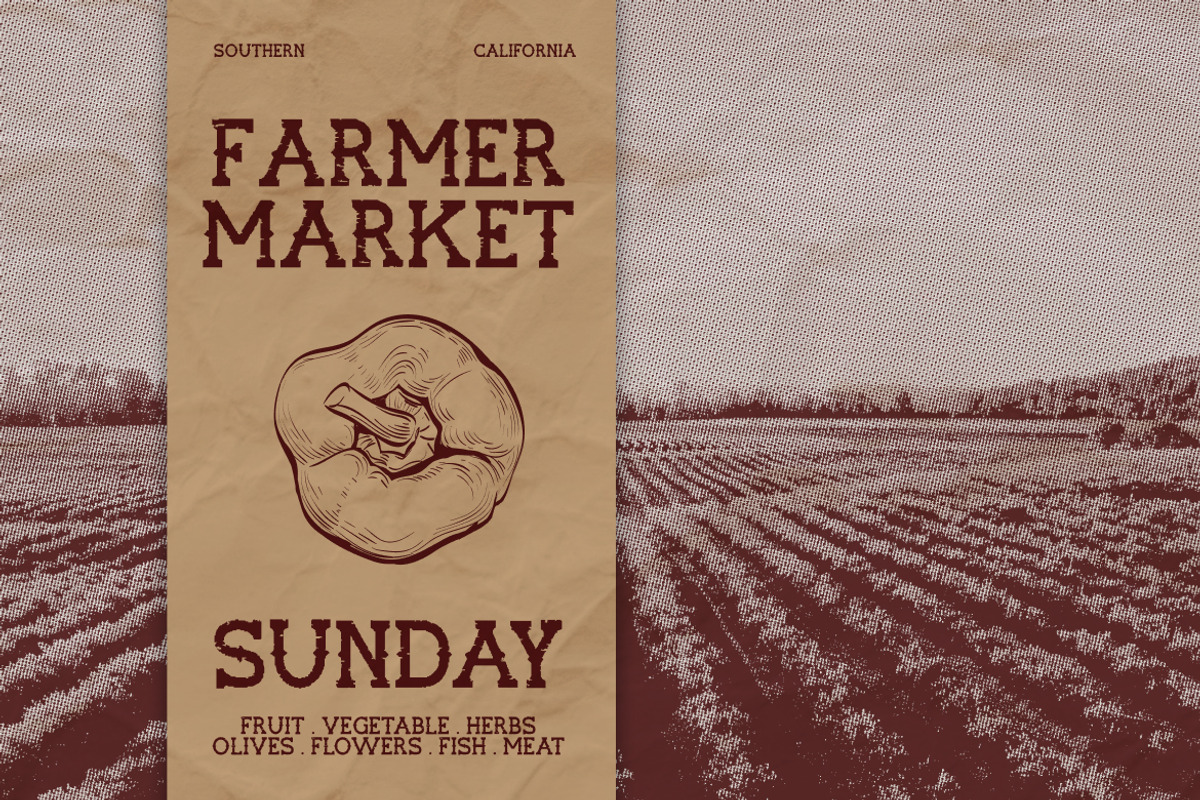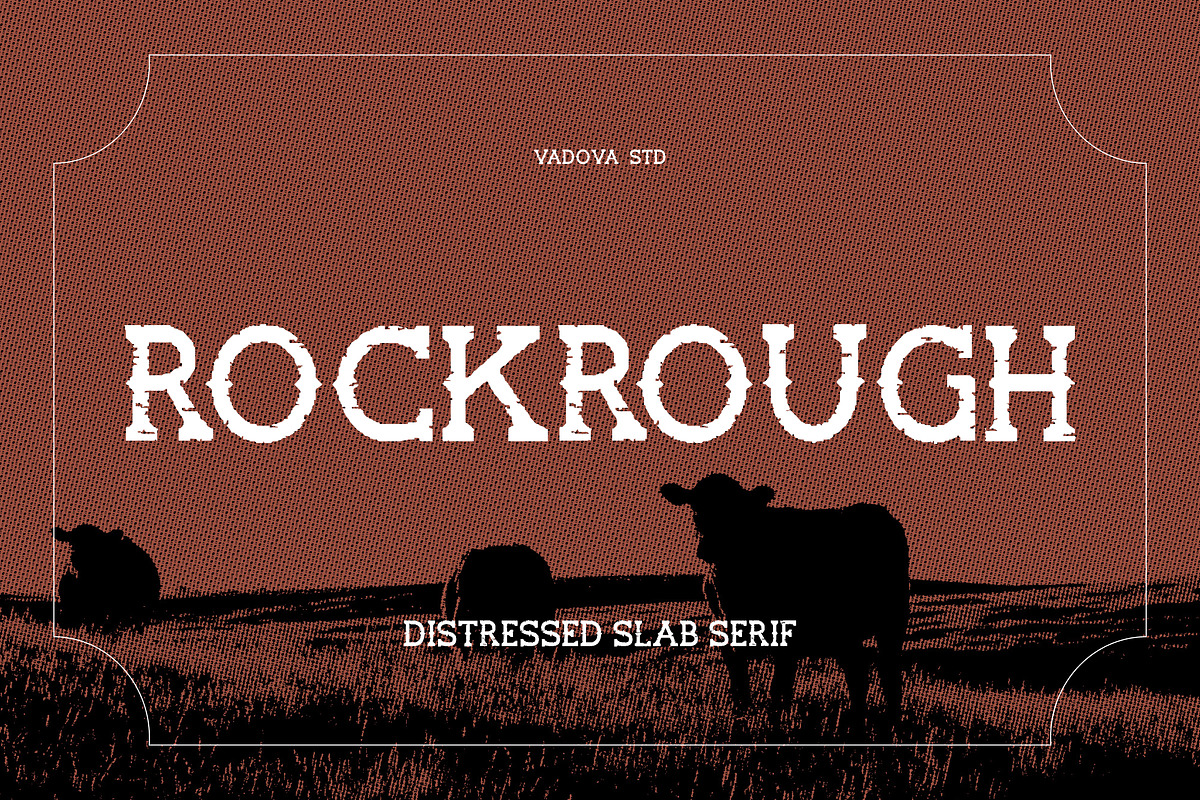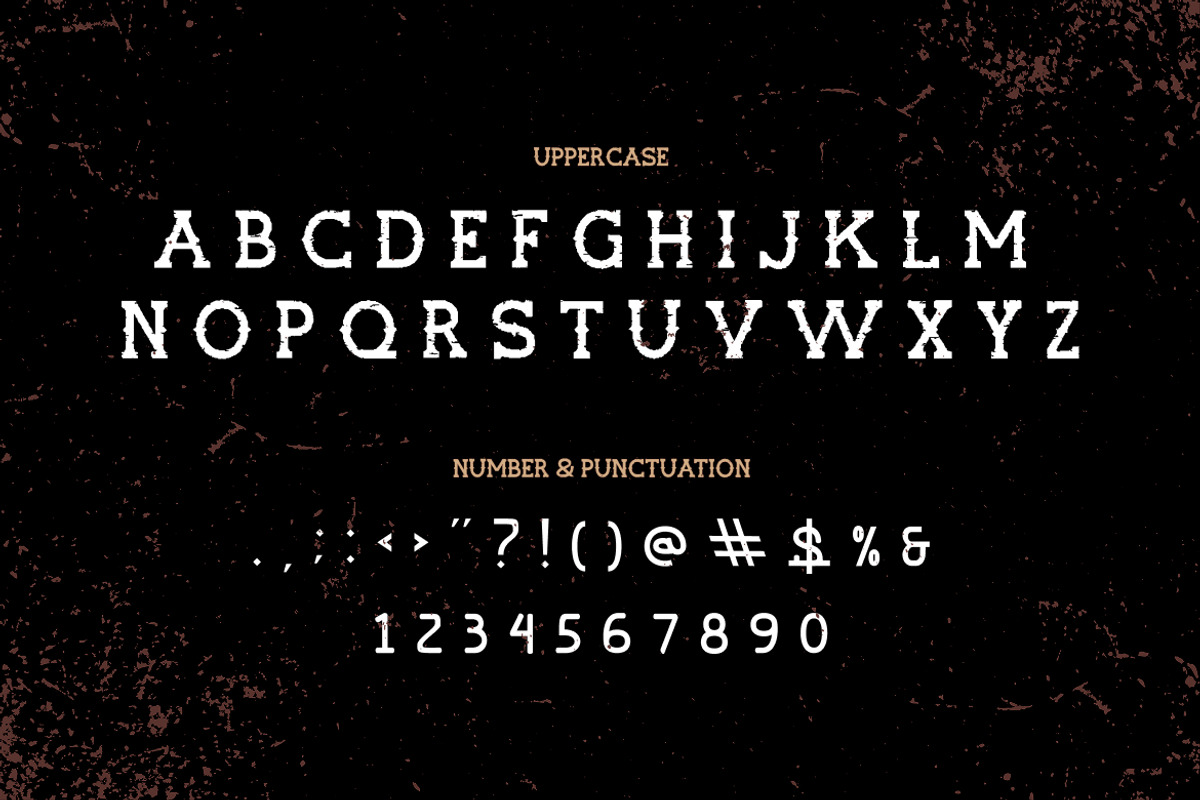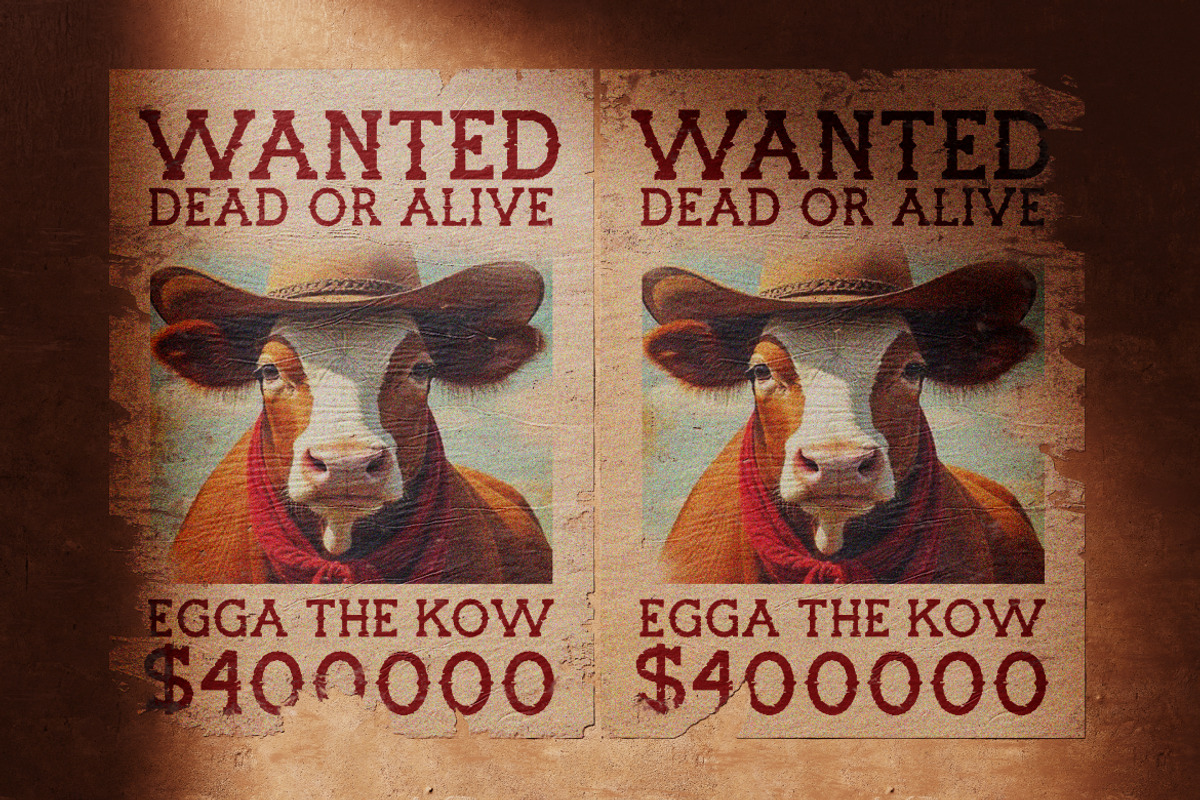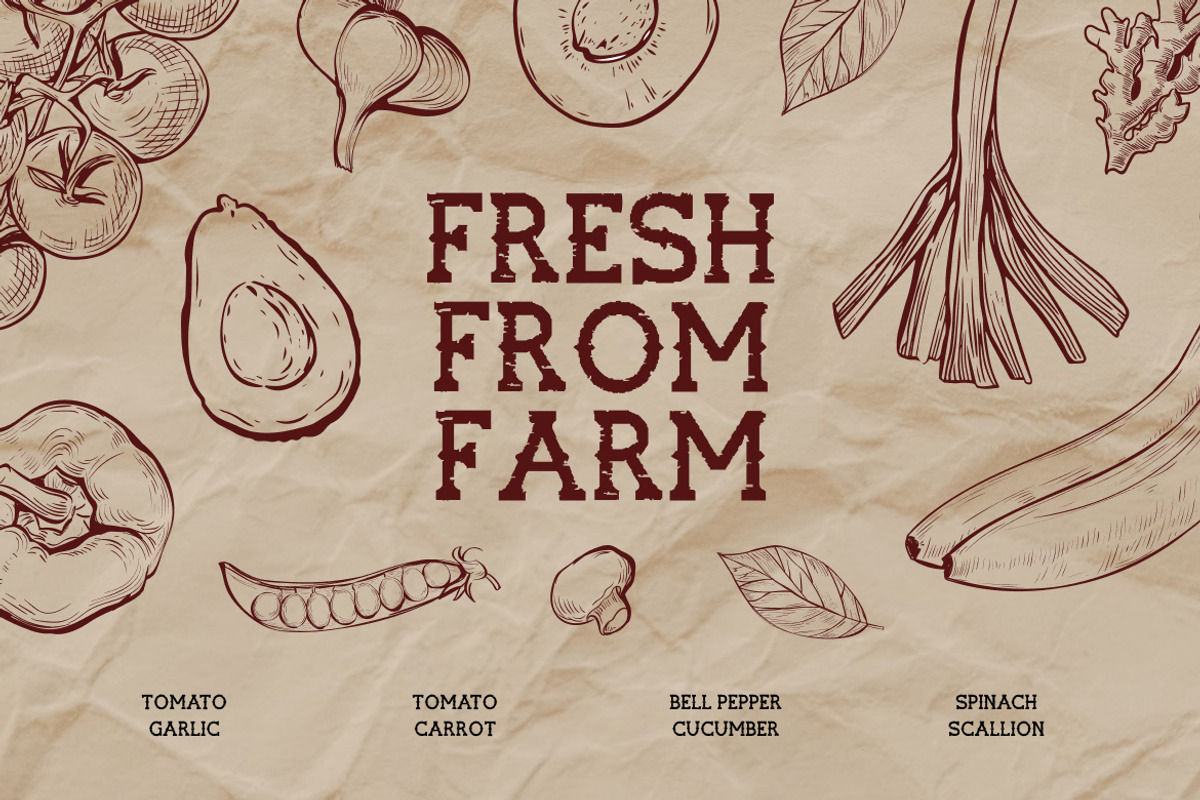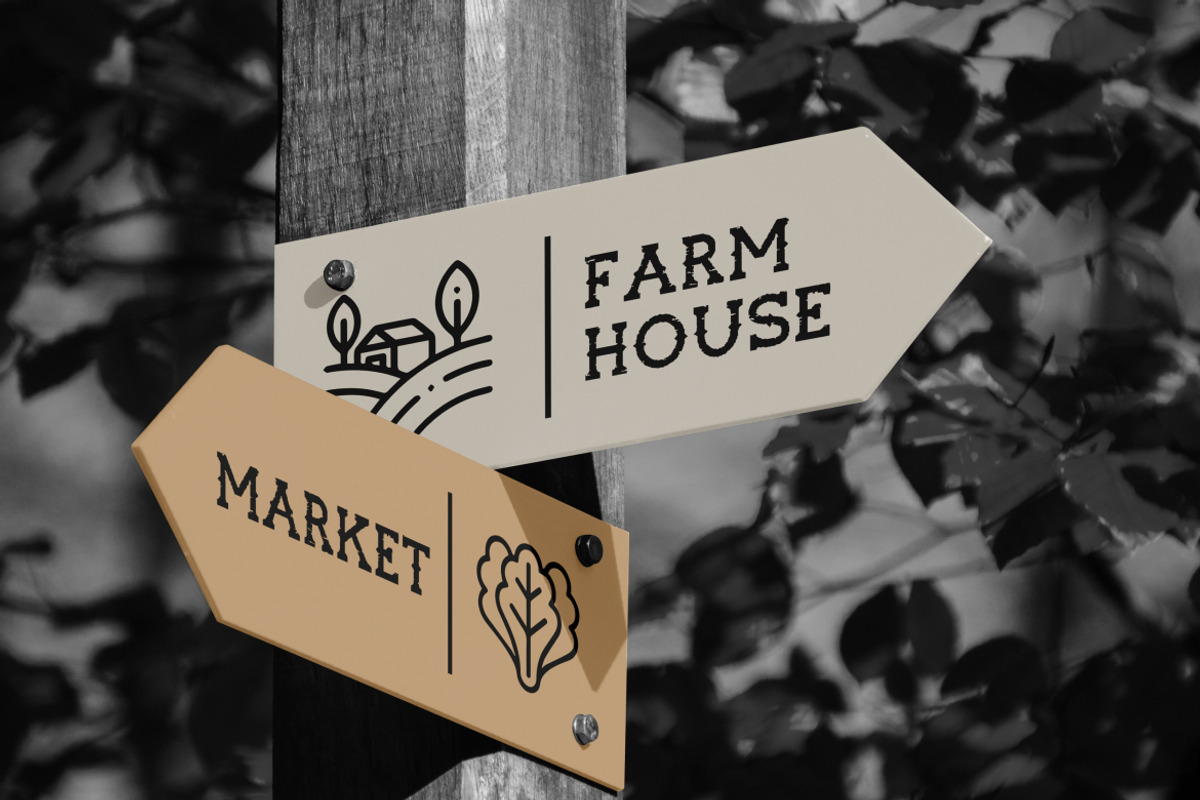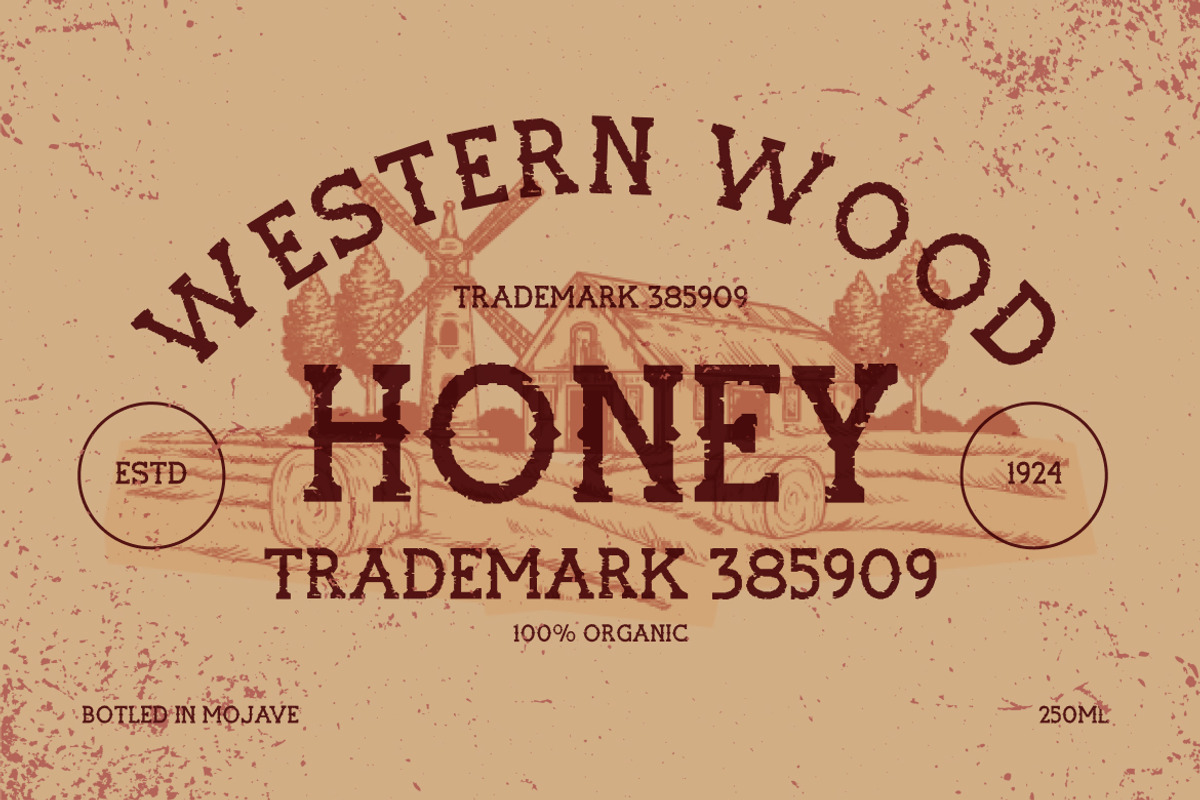
Rockrough Distressed Slab Serif Font
Rockrough is a bold distressed slab serif font inspired by rugged farmland textures, vintage wood type, and weathered print aesthetics. Featuring strong slab serifs, rough ink erosion, and raw textured edges, this typeface delivers an authentic handcrafted feel with powerful visual impact. Designed to evoke rustic signage, farm branding, and heritage typography, Rockrough blends western character with modern usability.
Rockrough is highly relevant for projects that require bold rustic character and authentic vintage appeal. Perfect for farm branding, organic product packaging, craft labels, western-themed posters, ranch logos, farmers market signage, restaurant menus, whiskey labels, and heritage-inspired merchandise. Its strong slab structure and distressed texture make it ideal for projects that need a rugged, bold, and traditional atmosphere with modern clarity.
- Bold slab serif construction with strong rectangular serifs for a powerful presence
- Distressed texture detailing that mimics worn ink and vintage print surfaces
- Rough, eroded edges adding authentic rustic and western character
- Solid, heavy stroke weight built for impactful headline use
- Classic serif proportions inspired by old ranch and farm signage
- Farm and ranch brand identity systems with strong heritage character
- Organic food packaging and farmers market labels
- Western-themed posters and country event promotions
- Craft beer, whiskey, and artisanal product branding
- Rustic restaurant menus and BBQ branding